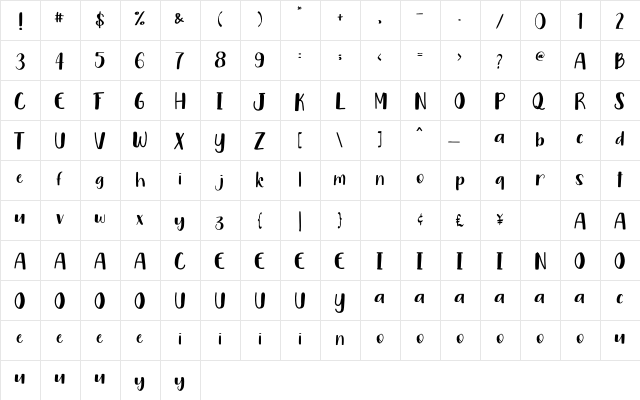
Baby Biscuit Regular Font Preview
Baby Biscuit Regular
Baby Biscuit Regular Font Details
Design Context for Baby Biscuit Typeface
Baby Biscuit is a composed and adaptable typeface that performs quietly and consistently across a wide range of design contexts.
Pro Tip: Use Baby Biscuit in both headline and body roles to test its range before committing to a single application.